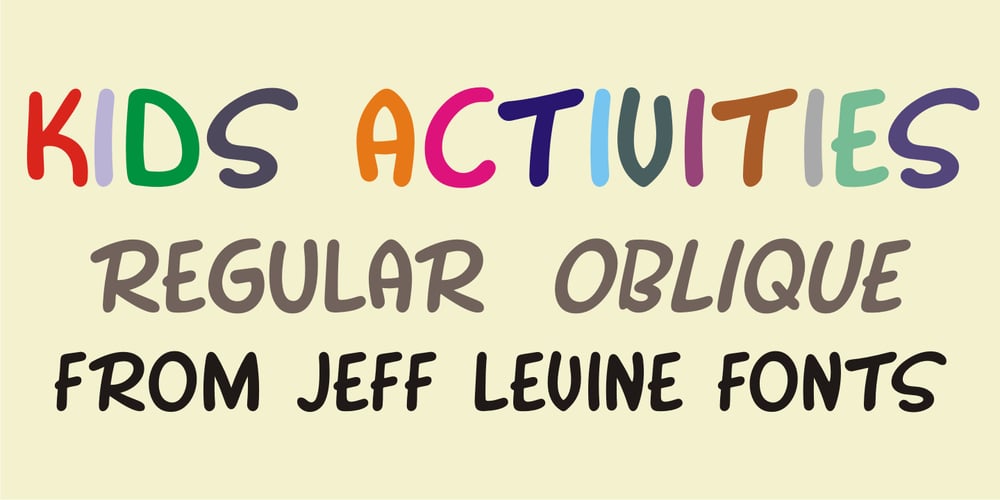
Kids Activities JNL Font Family was designed by Jeff Levine and published by Jeff Levine. Kids Activities JNL contains 2 styles and family package options. Kids Activities JNL is based on the hand lettering found on the covers of some 1955 Cub Scouts activity books. It’s available in both regular and oblique versions.